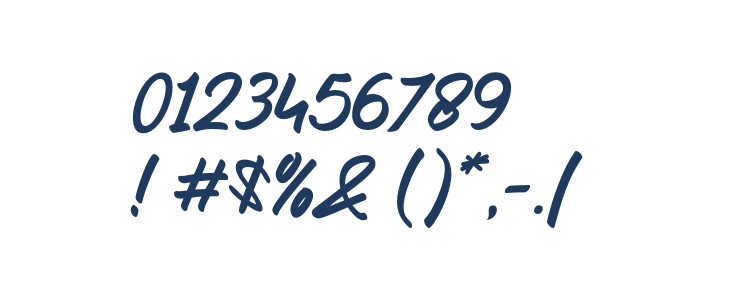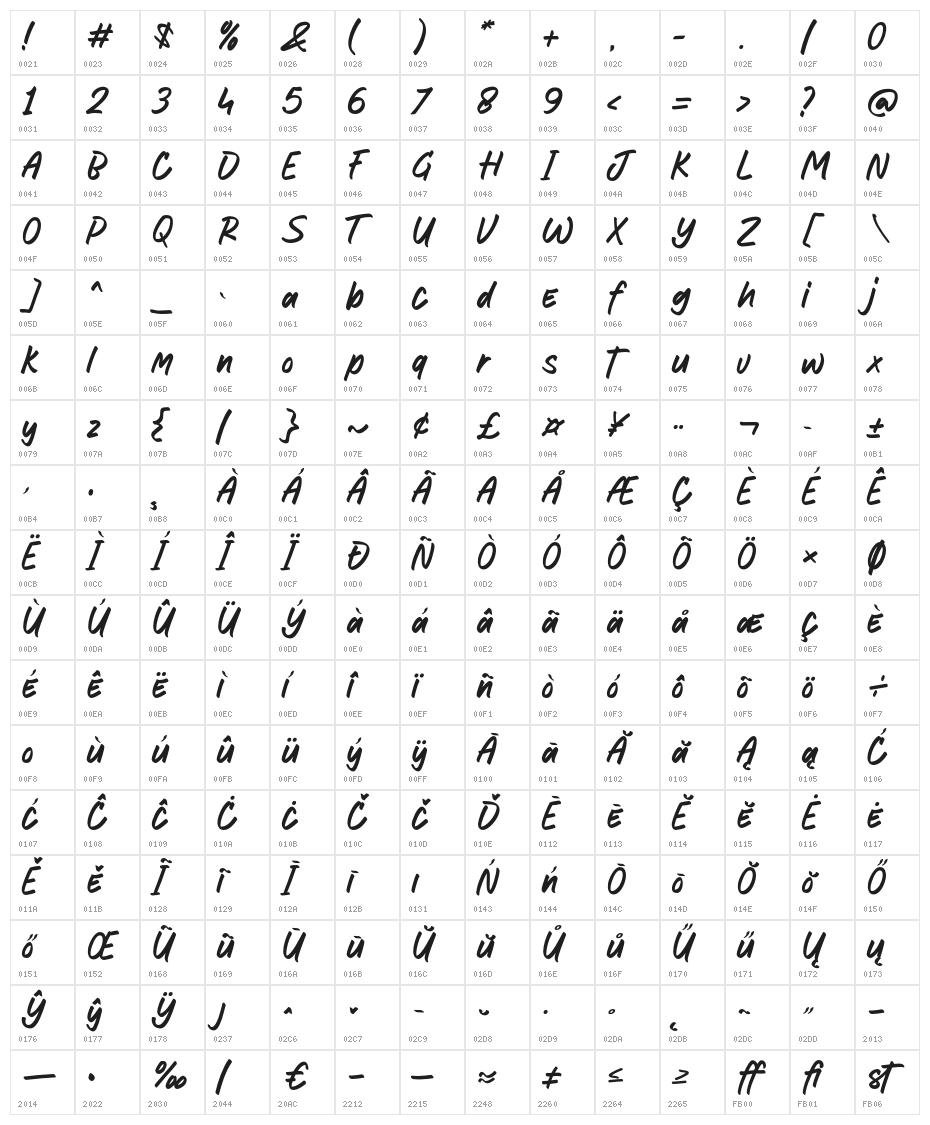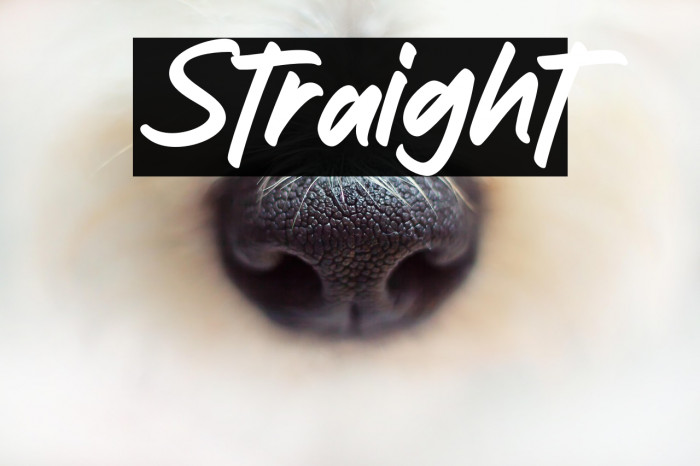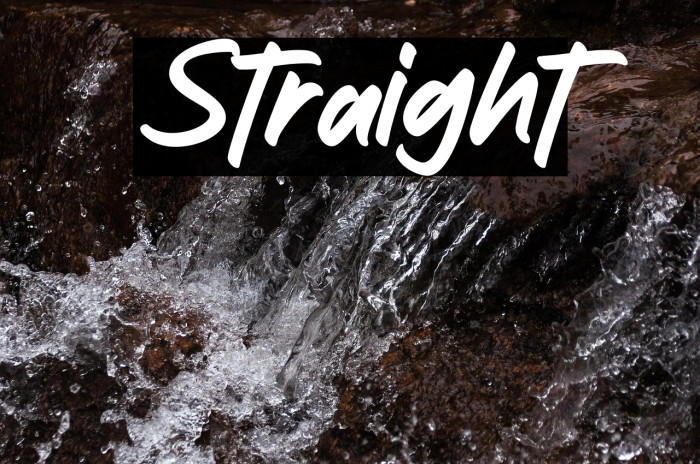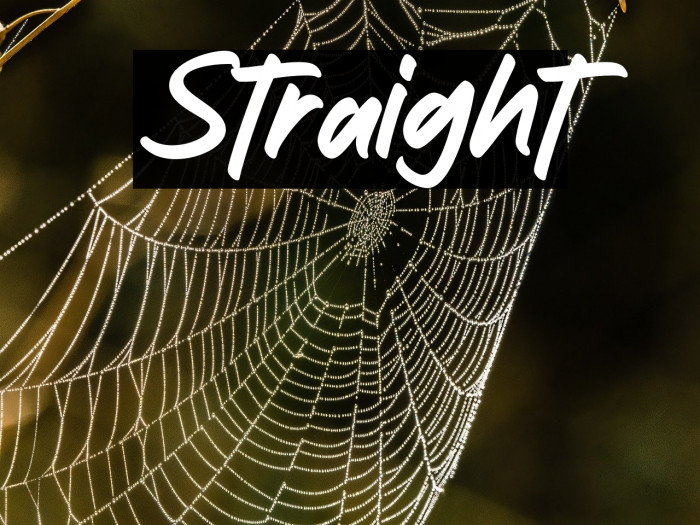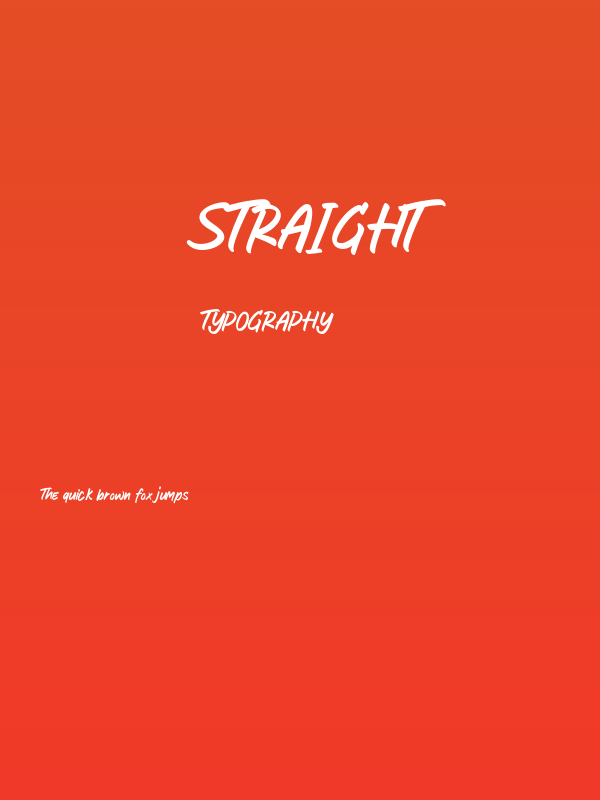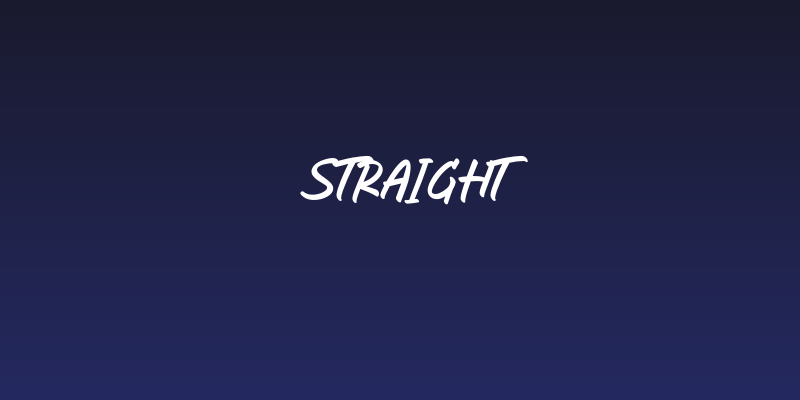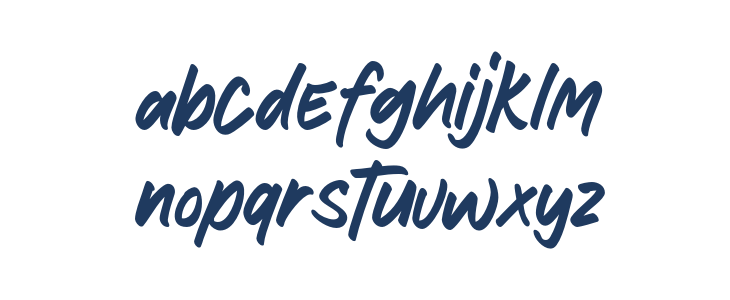
Straight Font
Straight Description
This font features a bold, handwritten style with a dynamic and energetic appearance. The letters are slightly slanted, giving a sense of movement and fluidity. The strokes are thick and consistent, providing a strong visual impact. The uppercase and lowercase letters maintain a cohesive look, with rounded edges and smooth curves. Numbers and special characters are designed to match the overall style, ensuring uniformity across all elements. The font's playful yet assertive character makes it suitable for projects that require a personal touch.
| Use Case | Logos, Headlines, Posters |
| Proposed Projects | Ideal for branding, posters, social media graphics, and creative projects that require a personal and energetic touch. |